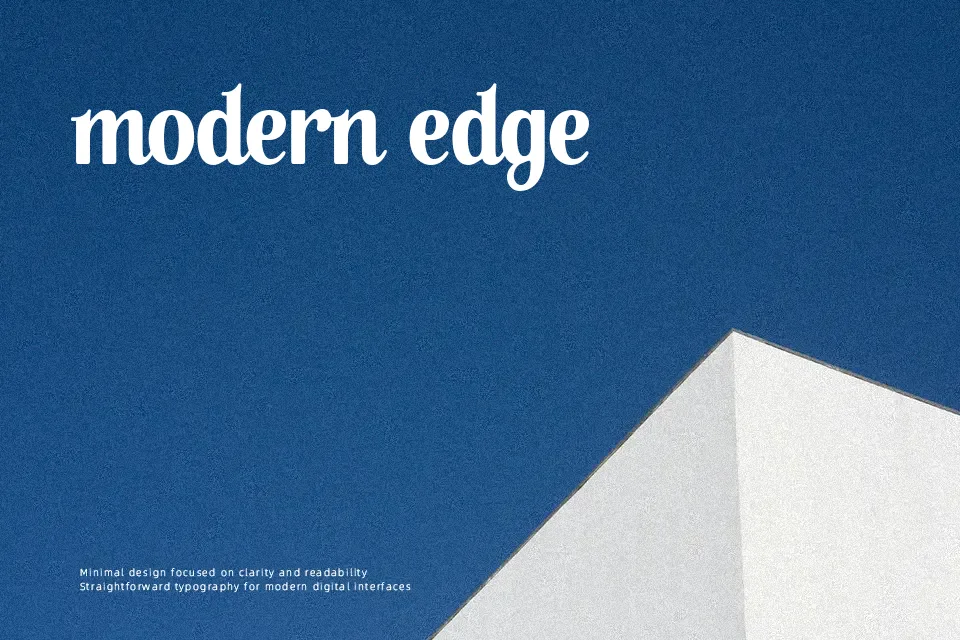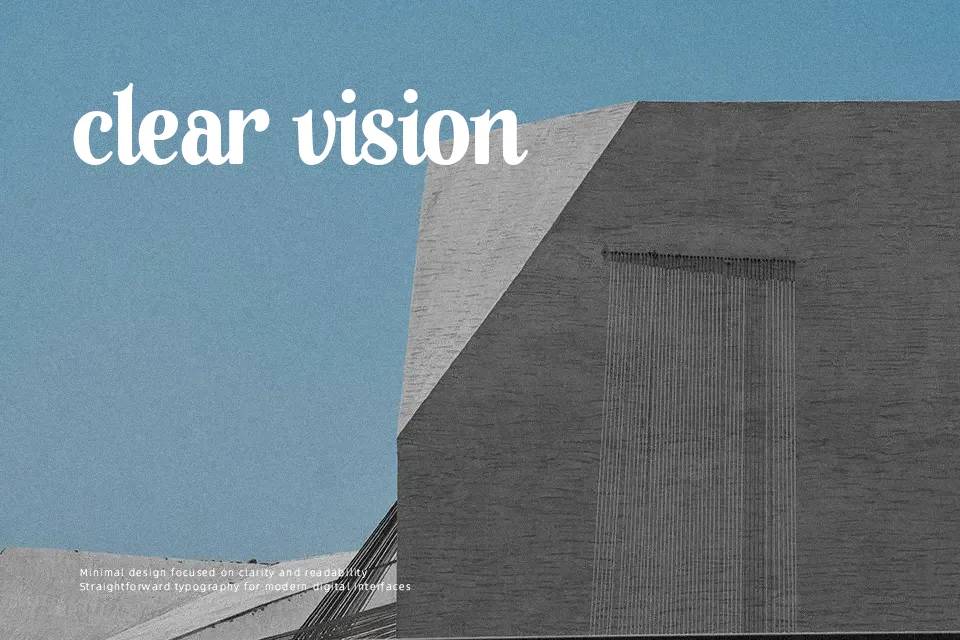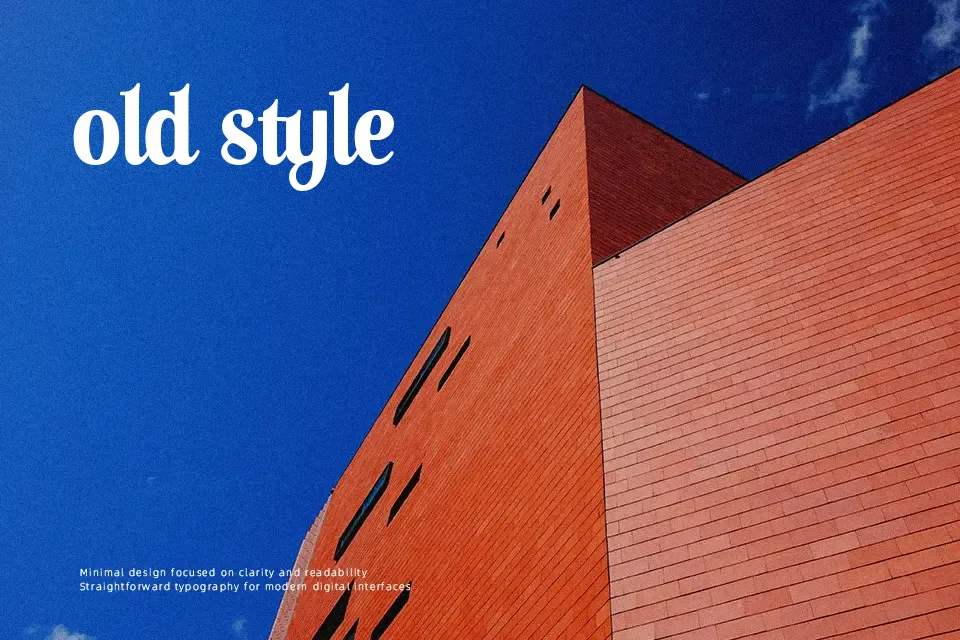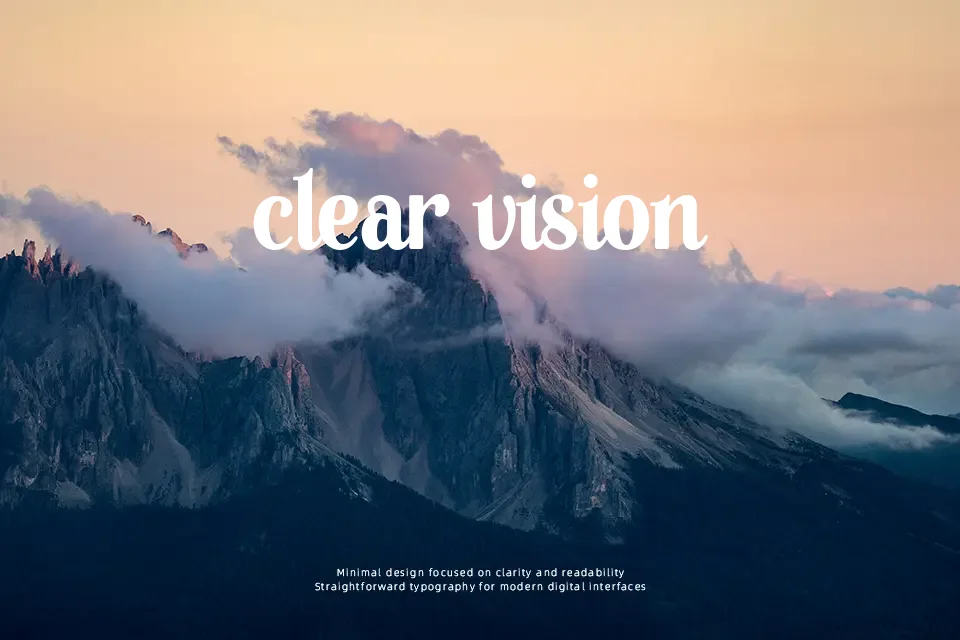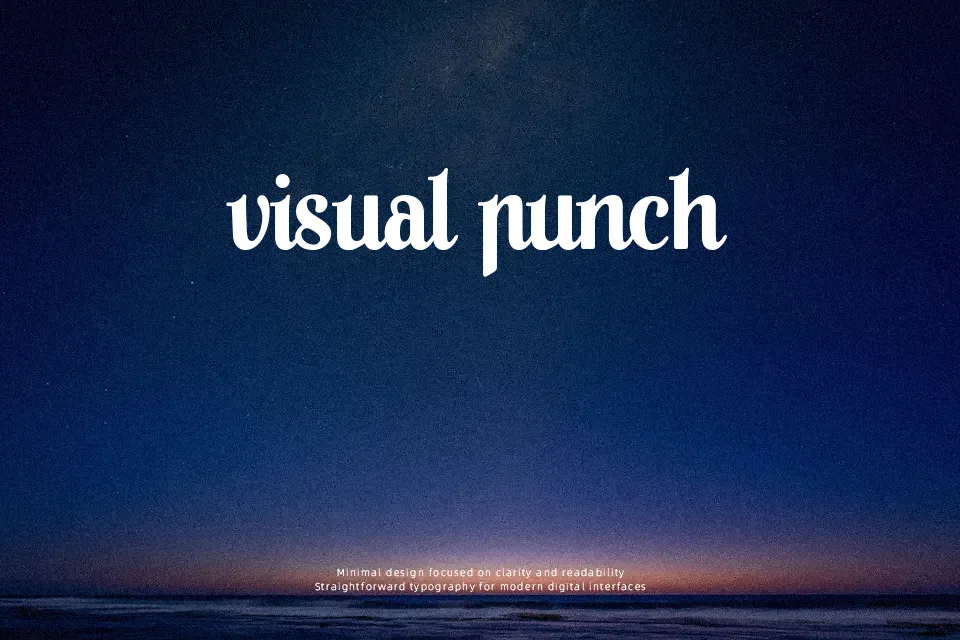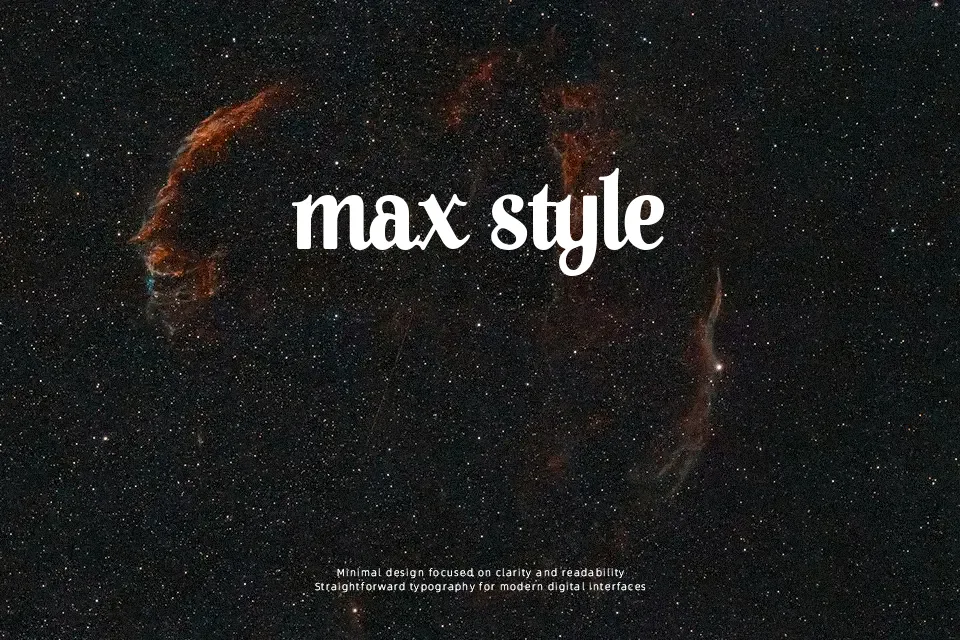
A Pompadour Display Font
Designed by Ana
High stroke contrast and elaborate detailing define this display typeface, giving each letterform a dressed-up, theatrical weight that leans firmly into vintage glamour. The uppercase characters carry the most visual punch, making it well-suited for single-line poster headlines, fashion editorial mastheads, and luxury product packaging where drama is the point. At large sizes, the ornamental structure reads with confidence; shrink it below roughly 18pt and the fine strokes begin to compete with the decorative ones, muddying legibility. It is not a workhorse font — body copy, navigation labels, or anything requiring extended reading will quickly exhaust its decorative personality. Use it where one or two words need to carry the whole visual mood of a layout, and pair it with a clean neutral typeface to let it breathe.
– Fashion editorial mastheads and pull quotes
– Luxury product packaging headers
– Vintage-style poster and event titles
– High-end restaurant or boutique signage
– Body text or long-form reading
– Small-size UI labels or mobile interfaces
– Corporate or technical documents
– Branding systems requiring versatile weight variants
Perfect for branding, editorial, and fashion, with a classic and decorative style.